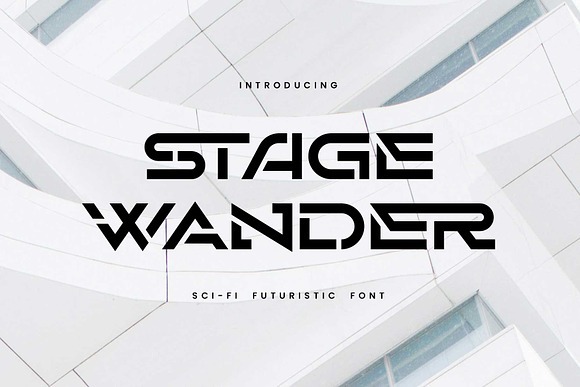
Stage Wander Font
About Stage Wander
Take your design on a space journey with ‘Stage Wander’. This geometric concept and stencil design offers dynamic looks and a sci-fi touch. The letterform features strong shapes, perfect for titles or displays.